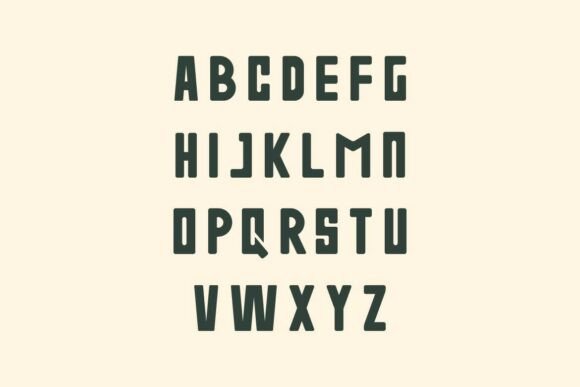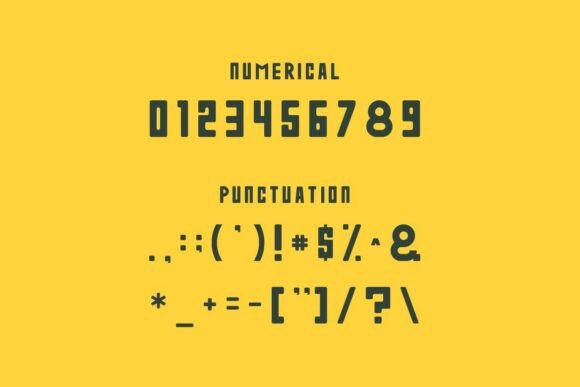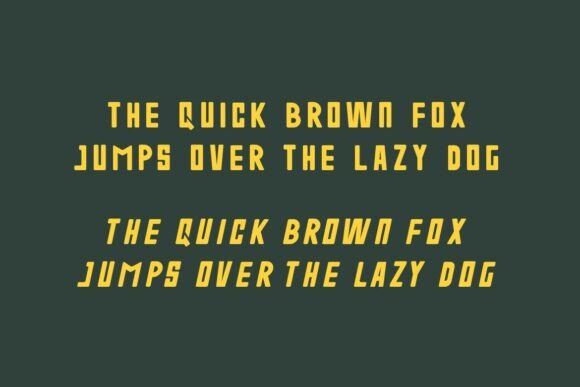
Kalevala Font – Free Download
Introduction to Kalevala Font
Kalevala is a vintage-inspired sans serif font that brings the warmth of old-world design into modern use.
| 👤 Author | Artiveko |
With slightly worn edges, balanced proportions, and timeless character, Kalevala is perfect for branding, retro packaging, signage, café menus, merchandise, and editorial layouts that need a touch of nostalgia and authenticity .
Key Features of Kalevala Font
Why Choose Kalevala Font?